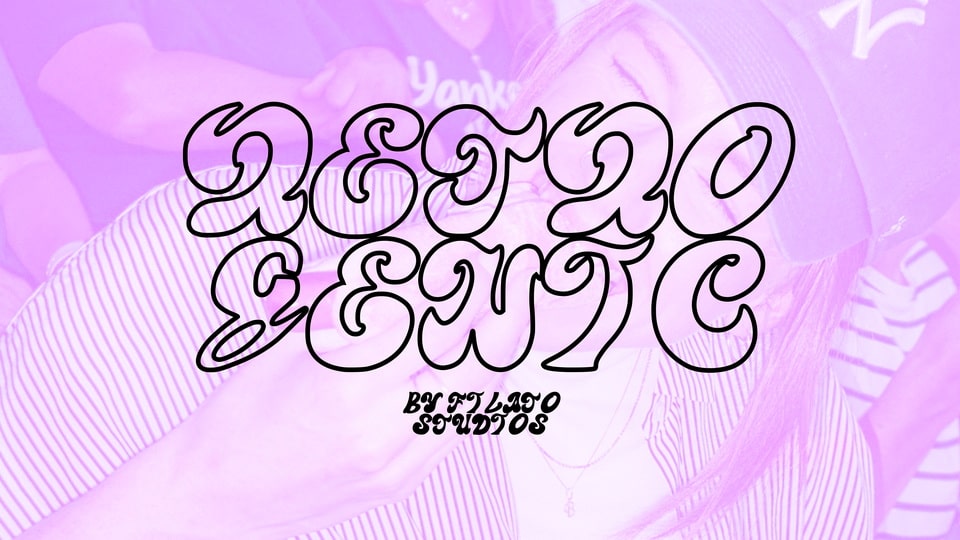
Download Retro Genic font, a bold and playful handwritten typeface with retro charm. It is suitable for printing t-shirts, mugs, book covers, branding, packaging, advertising, logos, badges and many more.
Designer: Filato Studios